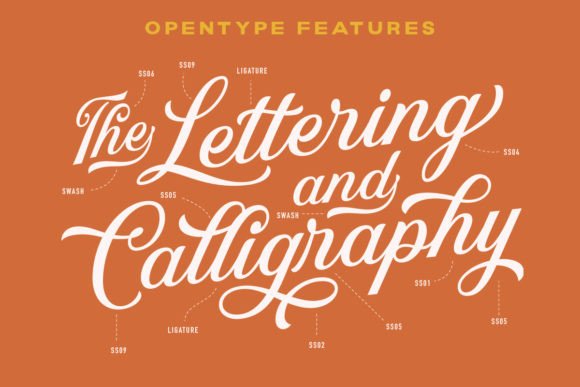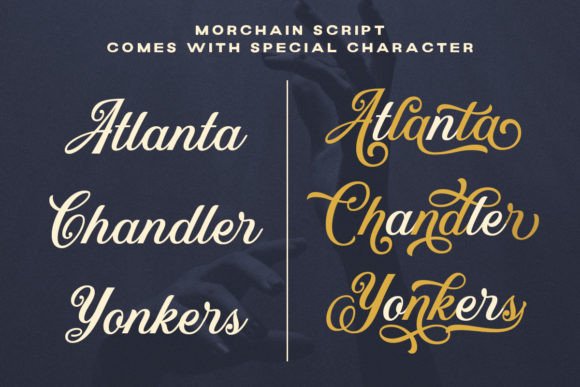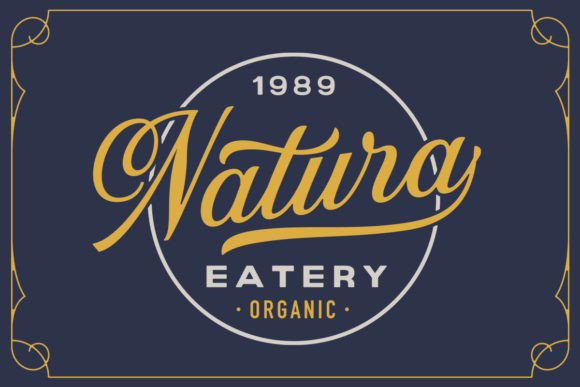
Introduction to Morchain Script Font
Have you ever stumbled upon a font that makes you stop and take notice? For designers, it’s a moment of pure excitement, a spark of creativity that can take a project to the next level. I still remember the first time I laid eyes on the Morchain Script Font – its elegant curves and flowing lines immediately captured my attention.
As a design resource, Morchain Script Font is a treasure trove of possibilities. With its high-quality, free download, designers can add a touch of sophistication to their creative projects, from logotype designs to headlines that make a statement. Whether you’re working on a personal or commercial project, this font is sure to leave a lasting impression.
What sets Morchain Script Font apart is its ability to evoke a sense of nostalgia, while still feeling modern and dynamic. With a transparent background that allows for seamless integration with any design, this font is a valuable asset for any designer looking to take their work to new heights.
Key Features of Morchain Script Font
- High-quality, elegant script font perfect for creative projects, including wedding invitations, quotes, and logos.
- Comes with a transparent background, allowing for easy integration into various design elements.
- Includes 400+ glyphs, including uppercase and lowercase letters, numbers, and punctuation marks.
- Designed with a high-resolution (300 DPI) for use in various applications, including print and digital media.
- Unique characteristics include a flowing, handwritten feel and a wide range of ligatures and swashes for added flair.
Honest Review: Morchain Script Font
As a designer, I’m always on the lookout for high-quality fonts that can elevate my creative projects. The Morchain Script Font is one of the latest additions to my design arsenal, and I must say it’s a great find! ✨
First of all, the font is free to download, which is always a bonus. The high-quality design makes it perfect for any creative project that requires a touch of elegance and sophistication. I’ve used it for logos, titles, and even body text with great results.
One of the standout features of the Morchain Script Font is its transparent background, which makes it easy to use on any background without worrying about visibility. This is a big plus for designers who want to add some flair to their designs without compromising on readability.
As with any font, there are some limitations to consider: ⚠️
- Limited character set, which may not be suitable for lengthy text
- No bold or italic versions available
Overall, I’m really impressed with the Morchain Script Font. It’s a great addition to any designer’s toolkit, and I’m sure I’ll be using it for many projects to come.
Tips for Getting the Most Out of Morchain Script Font
Experiment with different font sizes, colors, and combinations to achieve the perfect look for your creative project. Don’t be afraid to try new things and push the boundaries of what’s possible with this versatile font.
The Morchain Script Font is perfect for wedding invitations, branding materials, and any other creative project where a touch of elegance is required. Its high quality design and transparent background make it a versatile design resource that’s sure to impress.
Does the Morchain Script Font include a transparent background?
The Morchain Script Font typically includes a transparent background, making it easy to use in design projects that require a clear or see-through background. This feature is especially useful for creating visually appealing graphics and designs with a high level of customization.